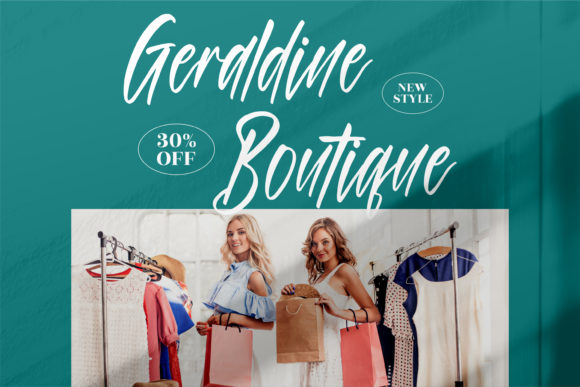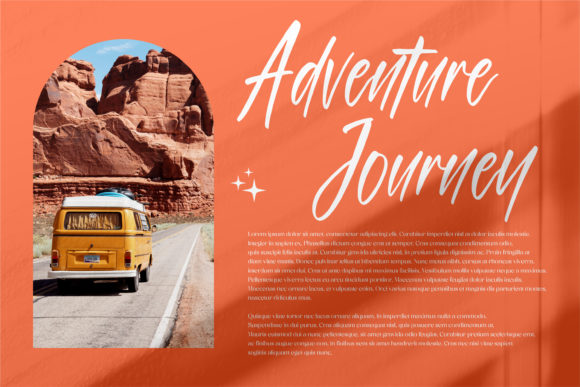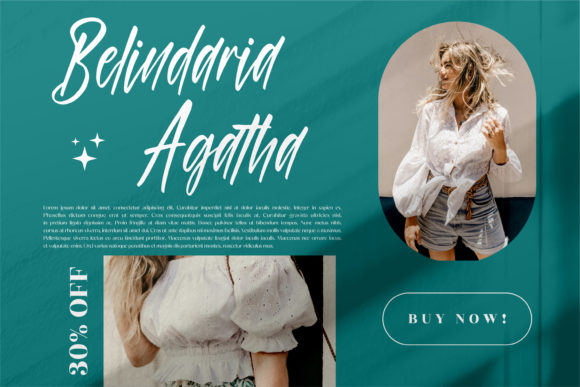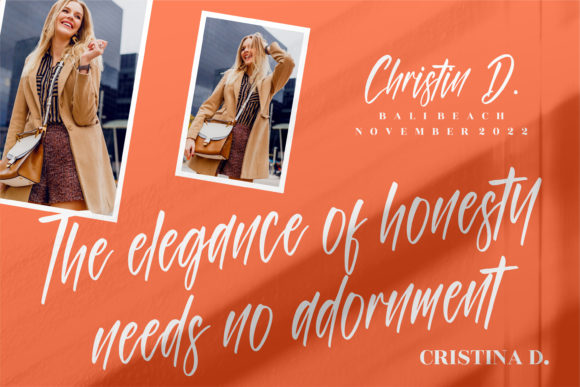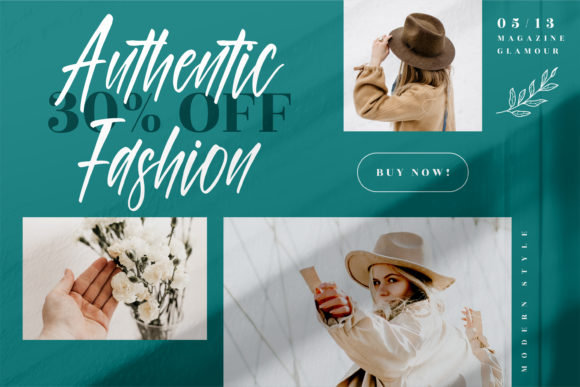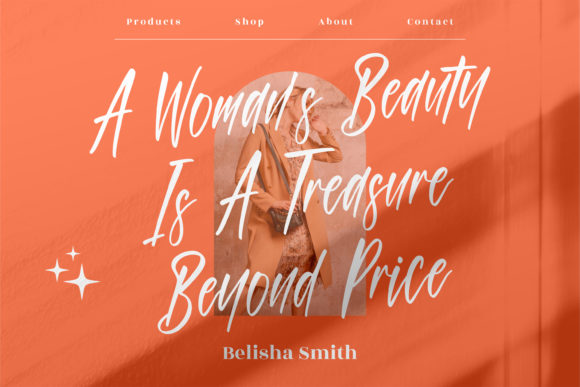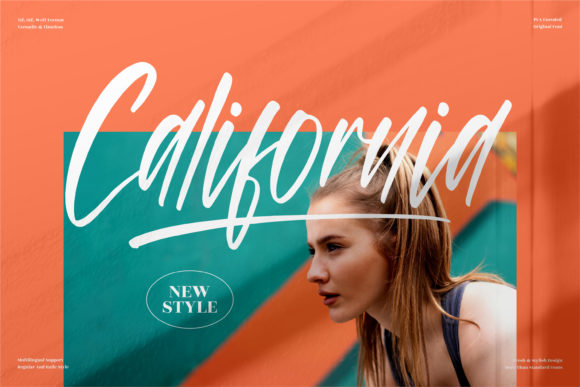
The California Font: A Timeless Beauty for Your Designs
I’ll never forget the moment I stumbled upon the California font. I was working on a branding project for a client who wanted a logo that exuded warmth, sophistication, and a touch of playfulness. As I scrolled through my font library, I felt like I was searching for a needle in a haystack – nothing seemed quite right. That’s when I discovered California, a lovely and timeless handwritten font that instantly captured the essence of my client’s vision.
So, what makes California font so special? Here are a few things that I absolutely adore:
- ✨ Unique and beautiful touch: Every letter has its own personality, making it perfect for creating eye-catching logos, branding, and quotes.
- ✅ Highly versatile: Whether you’re designing for digital or print, California font adapts seamlessly to different mediums and contexts.
- 💫 Emotive and expressive: This font has a way of conveying emotions and telling stories, making it ideal for creative projects that require a personal touch.
Of course, no font is perfect, and California has a few minor quirks to consider:
- 🤔 Limited availability of certain characters: Some users have reported issues with finding specific glyphs or special characters.
- ⚠️ Occasional kerning issues: As with any font, you may need to adjust kerning to achieve optimal results, especially when using all-caps or mixing with other fonts.
The Story Behind California Font
While the true origins of California font remain shrouded in mystery, it’s said that the font was inspired by the state’s laid-back, eclectic vibe. Imagine a creative melting pot where surf culture, art, and music blend seamlessly together – that’s the essence of California font.
| Font Name | California Font |
| Author | Perspectype |
| What makes California font so unique? | California font boasts a distinctive, hand-crafted feel with each letter having its own personality. |
| Is California font available in different weights or styles? | While California font may not offer multiple weights or styles, its versatility and expressiveness make it adaptable to various design contexts. |
| Can I use California font for digital and print projects? | Absolutely! California font is highly versatile and can be used across different mediums, from digital designs to print materials. |